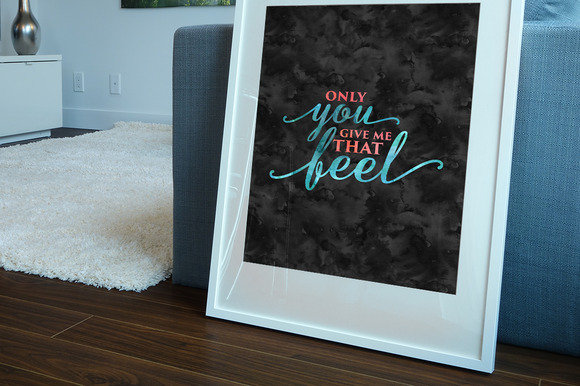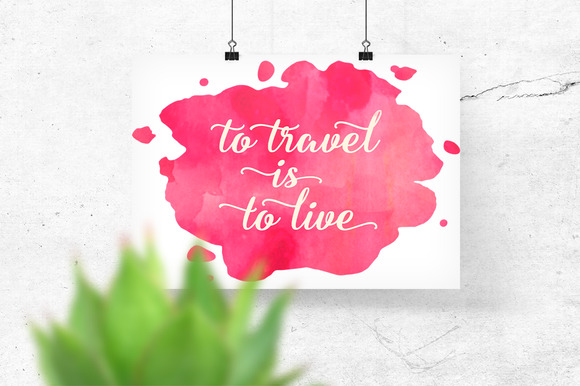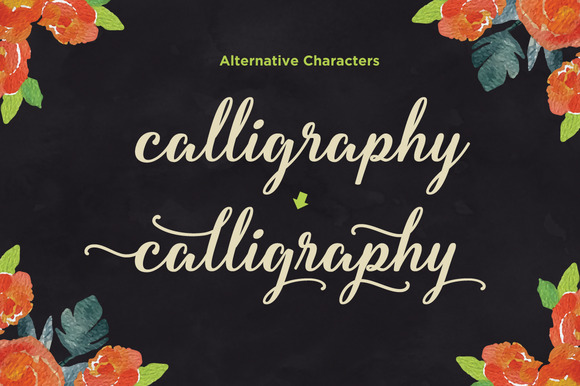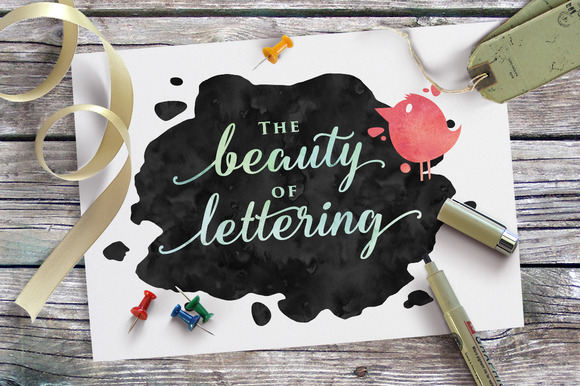
Fadilla Font
Fadilla is a contemporary calligraphy typeface which is flowing, feminine, and elegant. Intended to use for watercolor design-style, wedding invitation, greeting cards, etc.
Fadilla font comes with a complete set of standard characters, eastern diacritic symbols, 338 glyphs in total, and 150 alternative characters as OpenType features to play with. The alternative characters were divided into several OpenType features such as Ligature, Contextual Alternates, and Stylistic Sets. You can create an attractive message by using the alternate characters in your design.